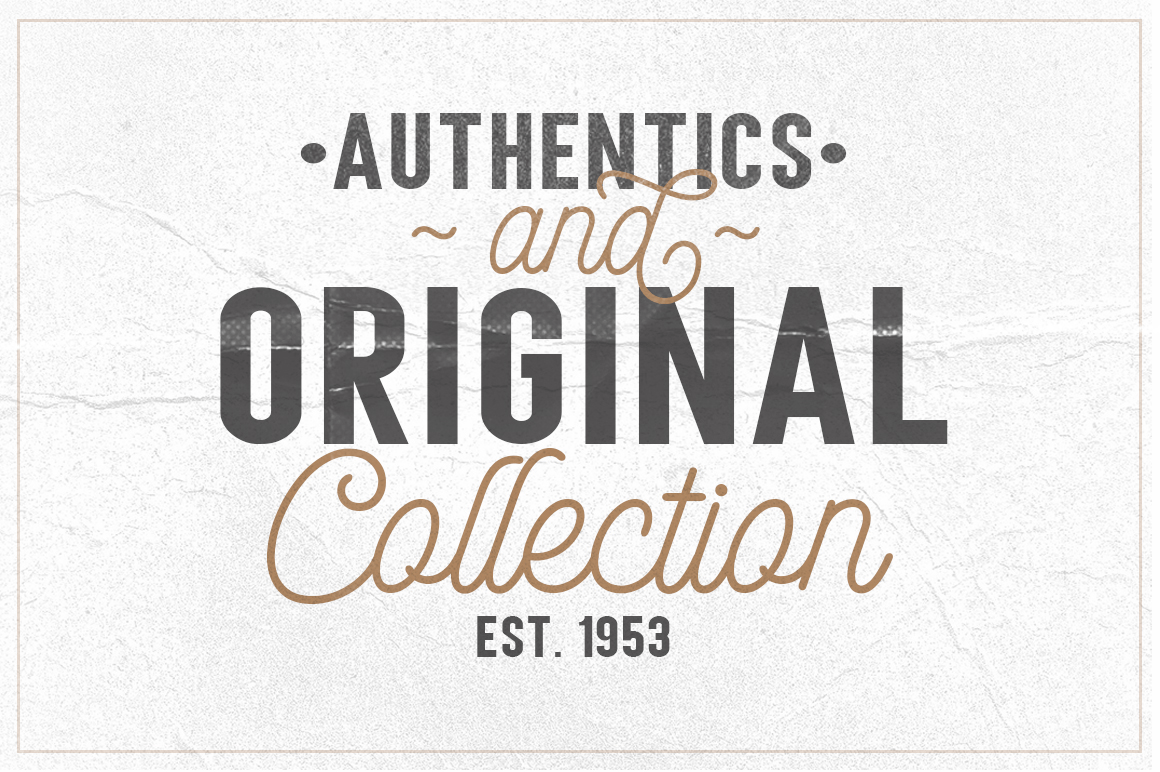
About Monotage
Monotage a modern combination Monoline Script and Sans. Monotage Font Duo, a classy, contemporary pair of Monoline Script and Sans. With a stylish didot-style Sans font and a free-flowing, expressive script companion, Silver South offers beautiful typographic…